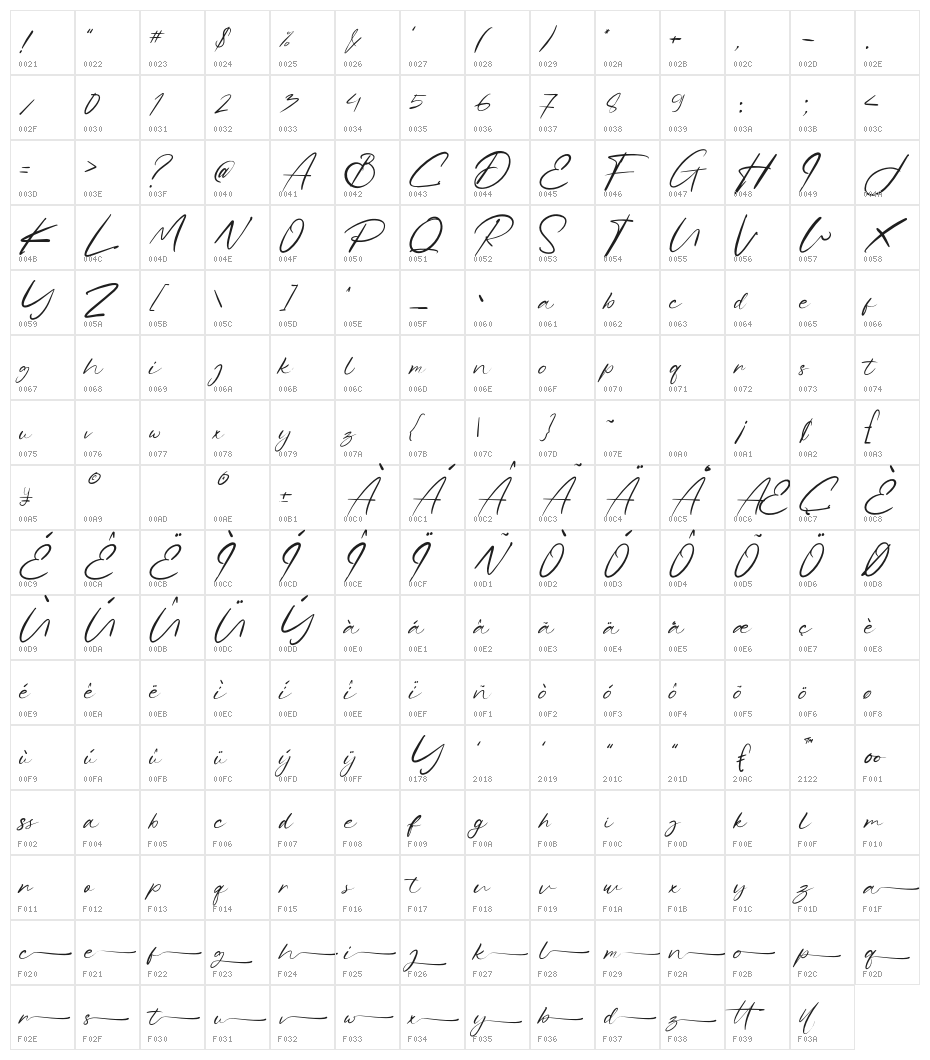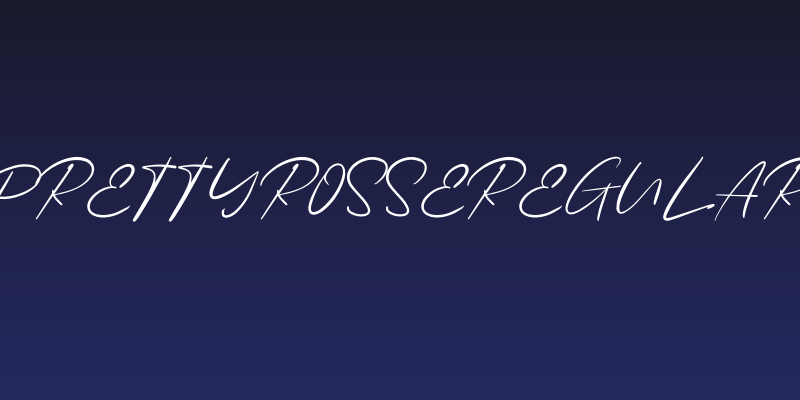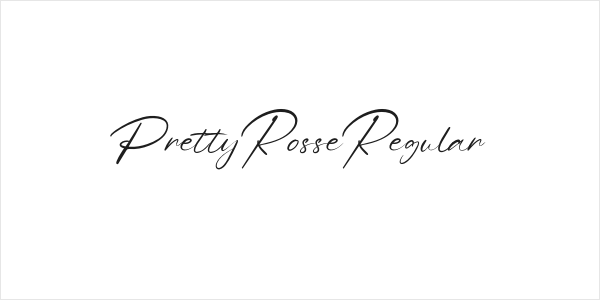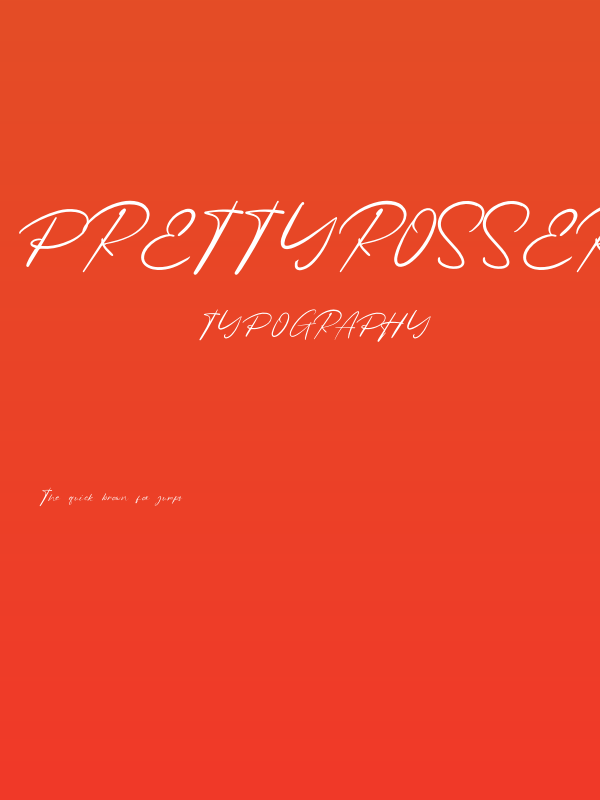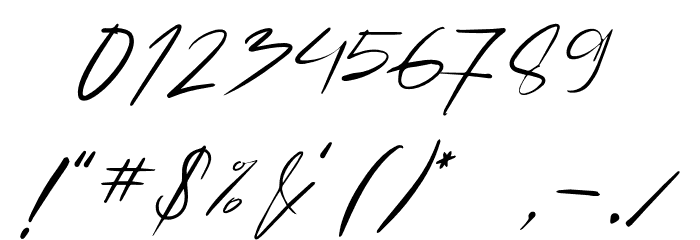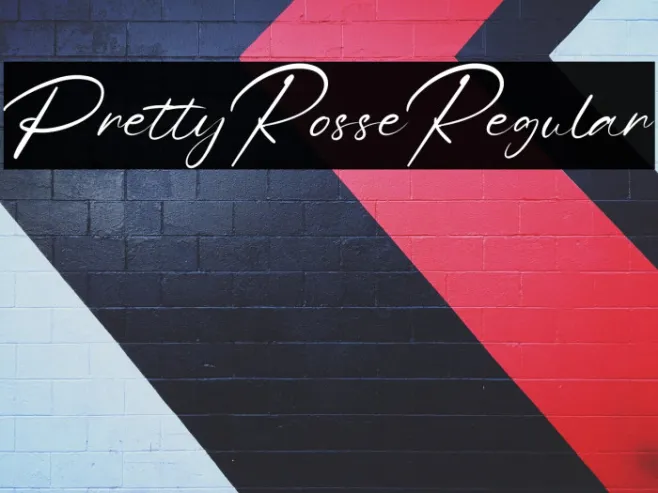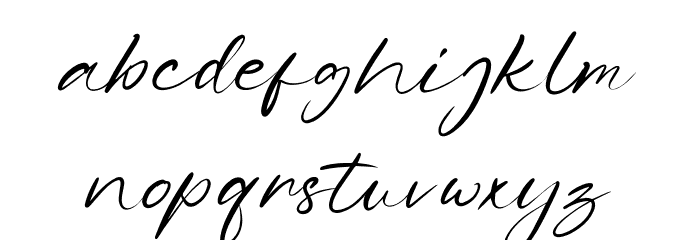
PrettyRosseRegular Font
PrettyRosseRegular Description
This font exudes elegance and fluidity, characterized by its cursive, handwritten style. The letters are gracefully connected, with smooth, flowing lines that give it a sophisticated and artistic appearance. The uppercase letters are slightly more elaborate, with flourishes that add a touch of drama, while the lowercase letters maintain a consistent, flowing script. The numerals and special characters are designed to match the overall aesthetic, ensuring a cohesive look. This font is perfect for projects that require a personal, elegant touch, such as invitations, greeting cards, or branding materials.
| Font Family | Pretty Rosse |
| Use Case | Headlines, Invitations, Branding |
| Proposed Projects | Ideal for wedding invitations, personal branding, greeting cards, and artistic projects. |